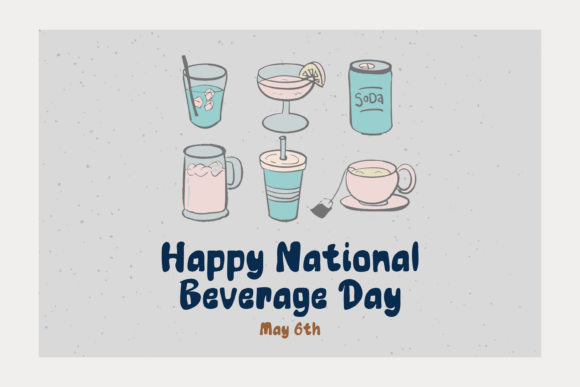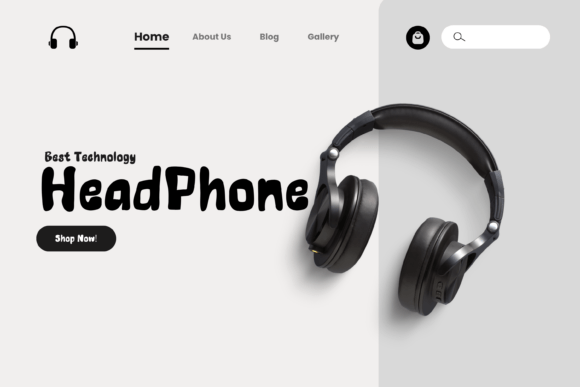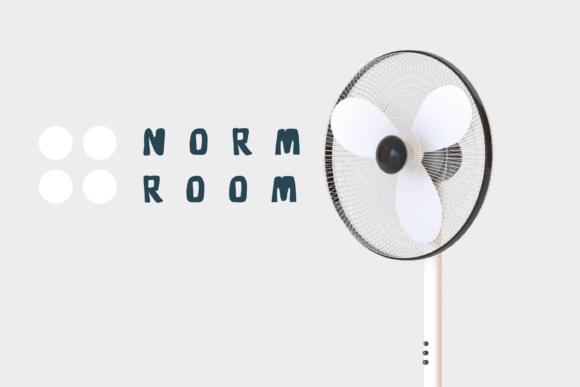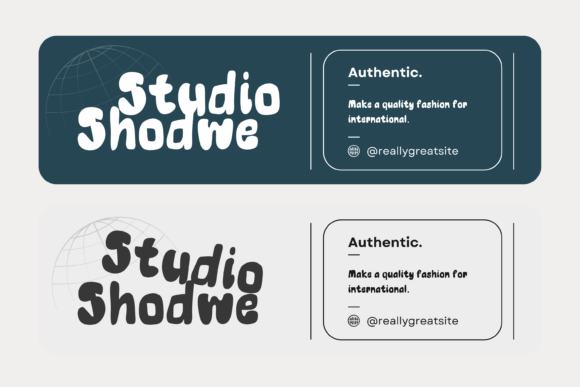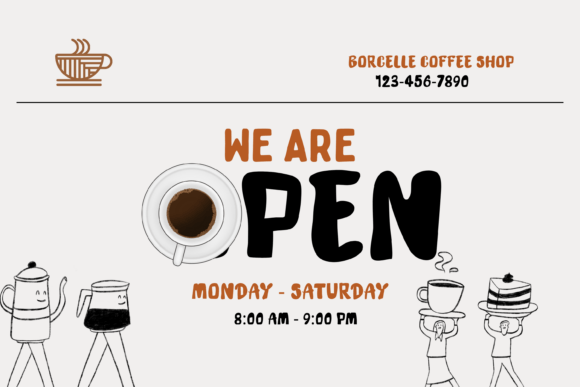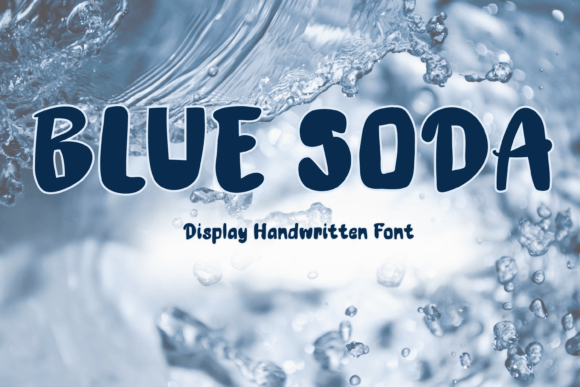
Introducing Blue Soda Font: The Bubbly Typeface That’s Full of Fizz and Charm!
Are you tired of using the same old fonts in your designs? Look no further than Blue Soda, a bold and cheerful font that’s sure to add a splash of fun to your projects! This hand-drawn display typeface is the perfect way to bring a refreshing, bubbly personality to your designs, making it ideal for a wide range of creative endeavors.
What Makes Blue Soda So Special?
Blue Soda’s unique charm lies in its rounded edges and chunky shapes, which give it a friendly and approachable feel. This font is perfect for designs that want to grab attention while maintaining a playful and approachable vibe. Whether you’re crafting playful logos, kids’ party invites, cute merch, or eye-catching quotes for social media, Blue Soda delivers a pop of character that’s hard to ignore.
The Perfect Font for Creative Projects
Blue Soda typeface is ideal for a variety of creative projects, including:
• Posters: Add a bold and cheerful touch to your posters with Blue Soda’s chunky shapes and rounded edges.
• Stickers: Create eye-catching stickers that are sure to grab attention with Blue Soda’s fun and playful design.
• Children’s books: Bring your children’s books to life with Blue Soda’s friendly and approachable font, perfect for young readers.
• Branding: Establish a fun and playful brand identity with Blue Soda’s unique and recognizable design.
• DIY crafts: Add a personal touch to your DIY crafts with Blue Soda’s hand-drawn and charming font.
• T-shirt designs: Create fun and eye-catching t-shirt designs with Blue Soda’s bold and cheerful design.
Why Choose Blue Soda Font?
So, why choose Blue Soda font for your next project? Here are just a few reasons:
• Unique and recognizable: Blue Soda’s bold and cheerful design makes it stand out from the crowd, ensuring your designs get noticed.
• Versatile: Blue Soda is perfect for a wide range of creative projects, from posters and stickers to children’s books and branding.
• Easy to read: Despite its bold and chunky design, Blue Soda is easy to read, making it perfect for use in a variety of contexts.
• Fun and playful: Blue Soda’s friendly and approachable design makes it perfect for projects that require a playful and fun vibe.
Get Ready to Add a Splash of Fun to Your Designs!
If you’re looking for a font that will add a splash of fun and personality to your designs, look no further than Blue Soda. With its bold and cheerful design, chunky shapes, and rounded edges, this hand-drawn display typeface is sure to bring a refreshing and bubbly personality to any project. So why wait? Add Blue Soda to your design toolbox today and get ready to create designs that are full of fizz and charm!
In conclusion, Blue Soda font is a bold and cheerful typeface that’s perfect for designers and crafters looking to add a splash of fun and personality to their projects. With its unique and recognizable design, versatility, and ease of use, Blue Soda is sure to become a go-to font in your design toolbox. So why not give it a try and see the difference it can make in your designs?